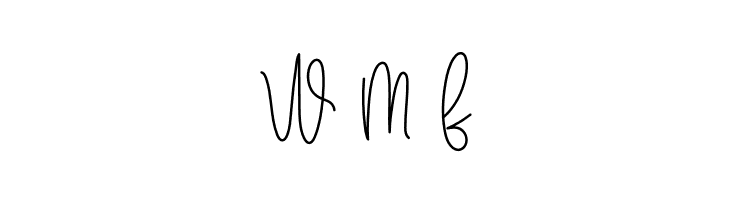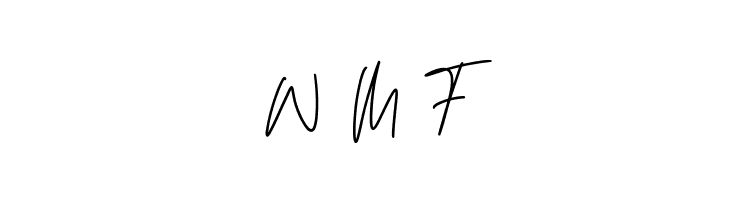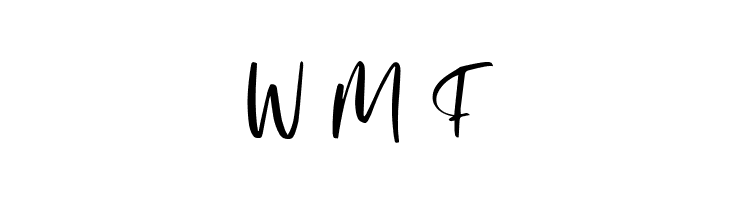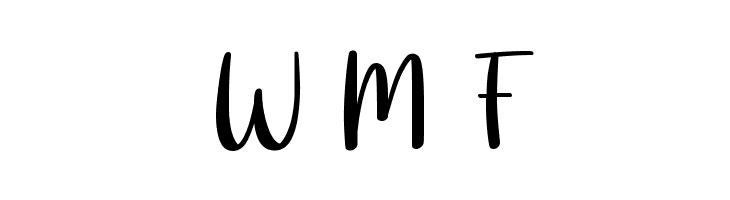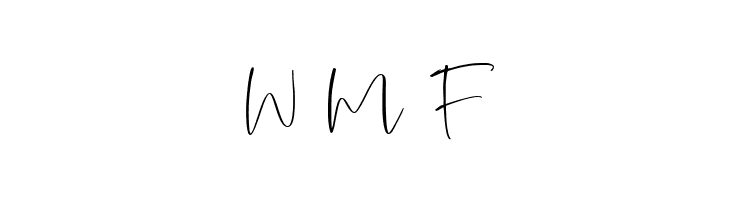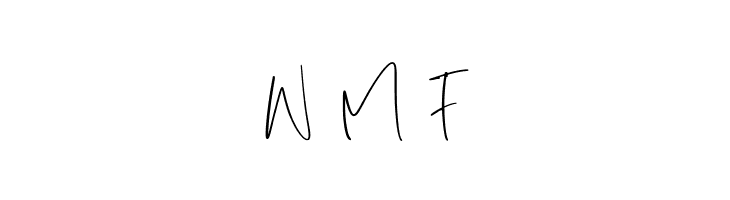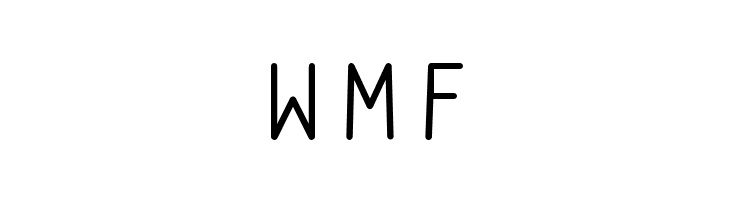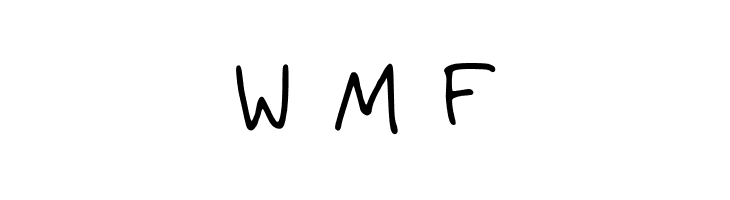
( Fonts by Syafrizal )
A dynamic, expressive handwritten font with elongated, fluid strokes.
( Fonts by Ana Maria Baštijanović )
A playful, bold font with thick, rounded, hand-drawn characters.
( Fonts by Andi Moz )
Decorative script font with elongated lines.
( Fonts by Amber Masterson )
A playful, hand-drawn outline font with a whimsical and friendly style.
( Fonts by Hatf Type )
A playful, handwritten font with tall, narrow letters and a casual style.
( Fonts by Graphix Line Studio )
Modern handwritten script with smooth, playful curves.
( Fonts by share font )
Casual handwritten script font.
( Fonts by Annisa Afni )
( Fonts by Maulana Creative )
A flowing, elegant handwritten font with smooth, continuous strokes.
( Fonts by Maulana Creative )
A sophisticated and elegant script font with flowing, cursive strokes.
( Fonts by Mohamad Arif Prasetyo )
Expressive handwritten script with tall, narrow, and fluid letterforms.
( Fonts by Dayan Marquina )
A playful and whimsical script font with fluid, cursive strokes.
( Fonts by p4r4d0x )
A playful, handwritten font with a casual and informal style.
( Fonts by Scratchones )
A playful, cursive font with smooth, interconnected strokes.
( Fonts by abahe )
Playful handwritten font with a casual feel.
( Fonts by olivetype )
Casual, handwritten script with tall, narrow, and flowing strokes.
A textured, hand-drawn style font with an artistic and rugged appearance.
( Fonts by Vunira Design )
A modern, cursive font with a natural handwritten style.
( Fonts by Aveni Letter Type )
An elegant, flowing script font with a refined, handwritten style.
( Fonts by Achmad Yani )
A lively and elegant script font with a modern handwritten style.